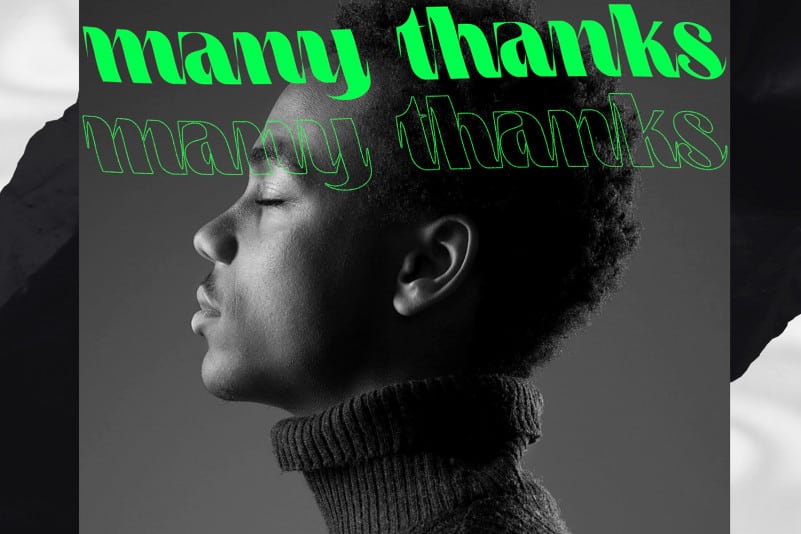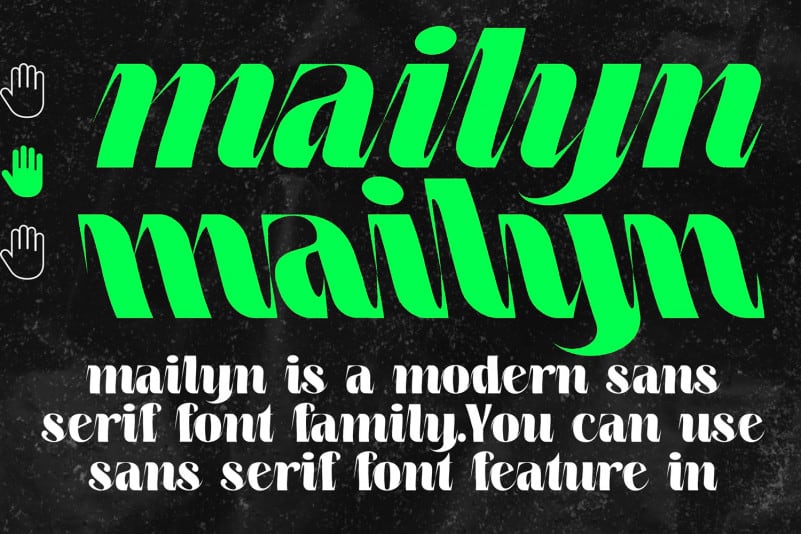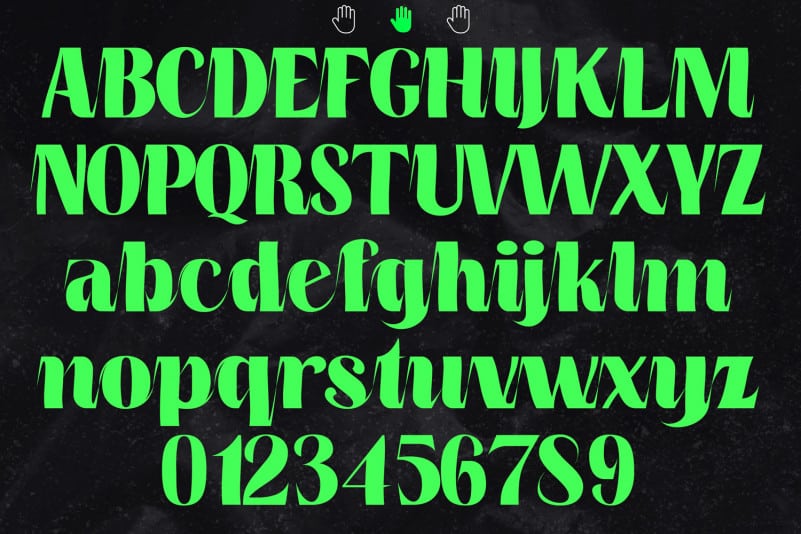
Mailyn Display Font This is elegant sans serif font. This is a strong modern sans serif style with All Caps feel nice balanced. Its wide range of uppercase allow versatile design options and works perfectly for headlines, logos, posters, packaging, T-shirts and much more.